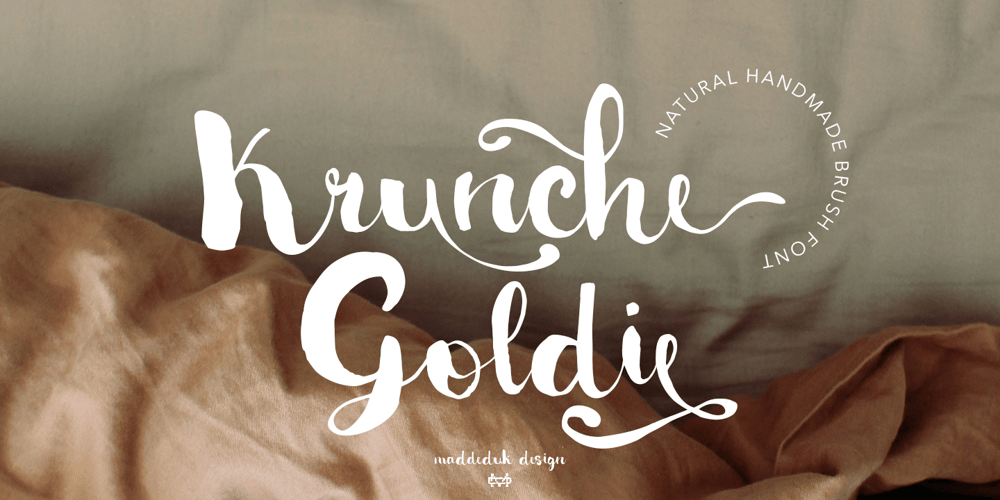
Krunche Goldie
Krunche Goldie font
Krunche Goldie Font Family was designed by madededuk and published by madeDeduk. Krunche Goldie contains 1 styles and family package options. Krunche Goldie is a realistic brush script! Come with much alternative and this font perfect for poster design, book covers, merchandise, fashion campaigns, newsletters, branding, advertising, magazines, greeting cards, album covers and more.